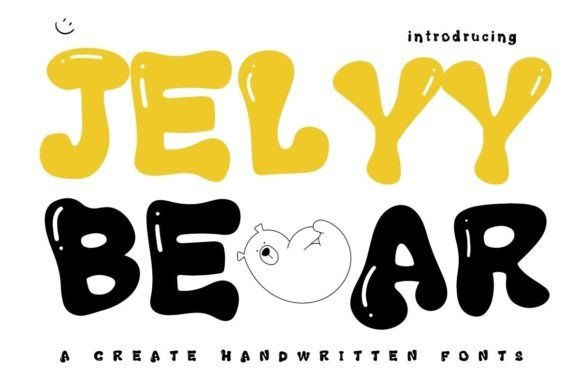
Meet the Font That Brings a Smile to Your Designs
As a designer, have you ever found yourself staring at a blank canvas, trying to conjure up the perfect idea for a children’s book cover or a playful poster? You know the moment when everything clicks, and the creative juices start flowing? That’s exactly what happened when we discovered the Jelly Bear Font. Its charming, hand-drawn feel instantly sparked our imagination, and we knew we had to share it with you.
Jelly Bear Font is more than just a cute display font – it’s a key to unlocking the whimsy and wonder of your designs. With its fluid, playful letterforms, this font is perfect for bringing a smile to your audience’s faces. Whether you’re creating stickers, posters, or anything in between, the Jelly Bear Font is sure to add a touch of magic to your work.
Jelly Bear Font Key Features
- Font Family: Jelly Bear Font is a sans-serif font family.
- Character Count: The font family includes a wide range of characters, including uppercase and lowercase letters, numbers, and punctuation marks.
- Unique Characteristics: Jelly Bear Font features a unique, playful design with rounded edges and a friendly feel, making it perfect for children’s books, magazines, and other publications targeting a younger audience.
Jelly Bear Font Review
I recently had the chance to work with the Jelly Bear Font, and I must say, it’s a unique and playful addition to any design project. ✨ The font’s rounded, whimsical feel immediately grabs your attention and adds a touch of cuteness to any text.
Here are some things that work well with the Jelly Bear Font:
- ✨ Easy to read: Despite its playful nature, the font is surprisingly easy to read, even at smaller font sizes.
- ✨ Versatile: The font works well for a variety of design projects, from children’s books to social media graphics.
- ✨ Customizable: The font offers a range of customization options, including font sizes, colors, and spacing.
- ⚠️ Limited expressiveness: While the font is great for playful designs, it may not be the best choice for more serious or professional projects.
- ⚠️ Limited font weight options: The font only comes in a few different weights, which may limit its use in certain design situations.
Overall, I’d say the Jelly Bear Font is a great choice for designers looking to add a touch of whimsy to their projects. While it may have some limitations, its unique feel and versatility make it a valuable addition to any design toolbox.
Tips for Getting the Most Out of the Jelly Bear Font
Use the Jelly Bear Font for playful and whimsical designs.
Pair the font with bright colors and bold graphics for maximum impact.
The Jelly Bear Font is perfect for:
Children’s book covers and illustrations.
Party invitations and decorations.
Food and beverage branding.